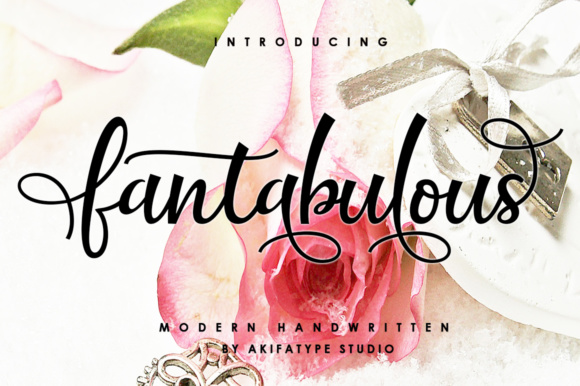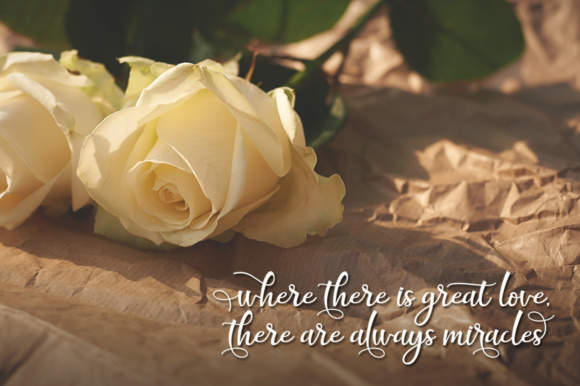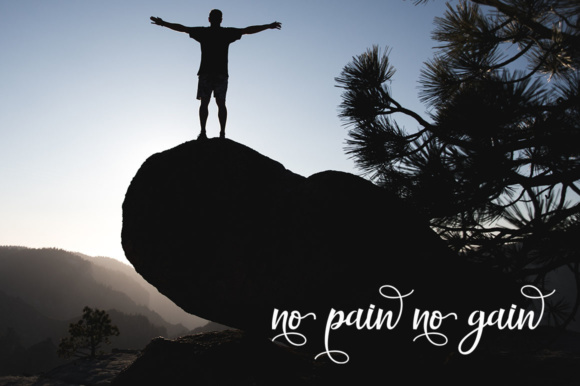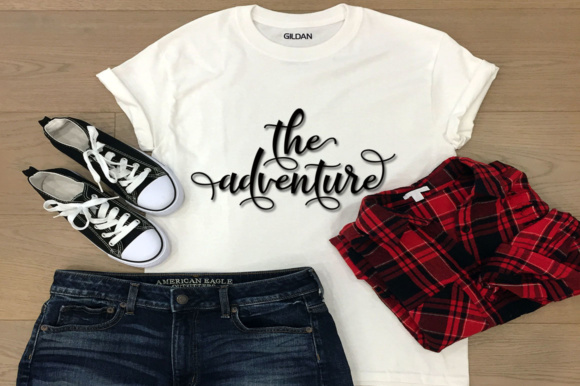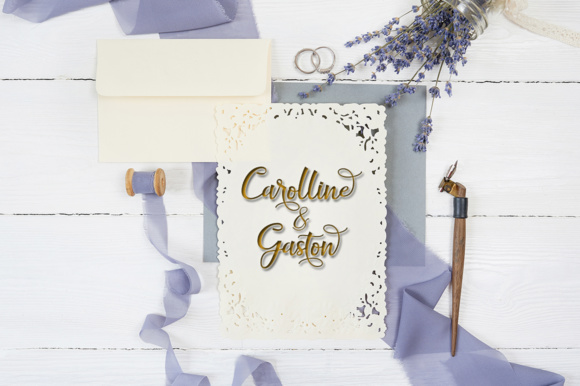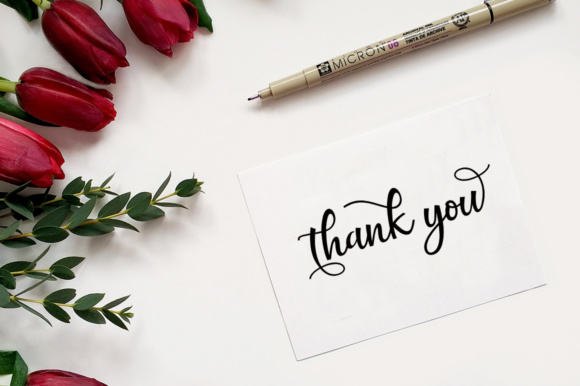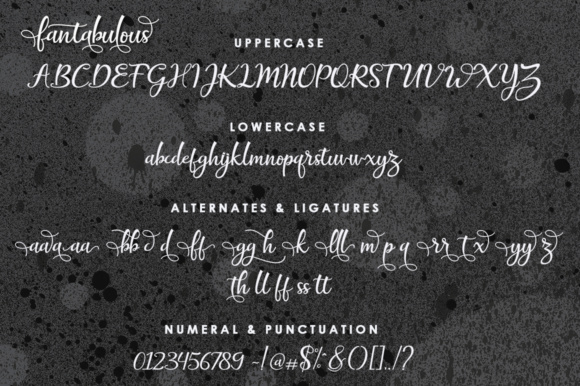
Fantabulous Font
About Fantabulous Font
The Fantabulous is a beautiful legible script. It’s ideal for a wide range of projects and is a great way to add a vintage yet clean style to your work.